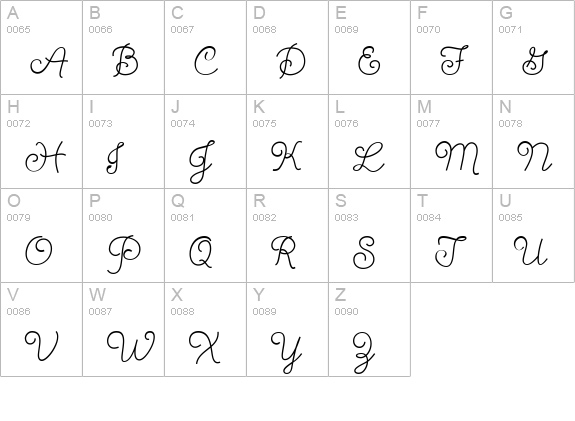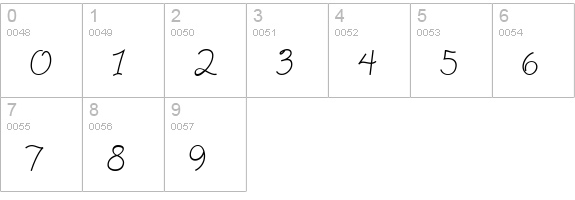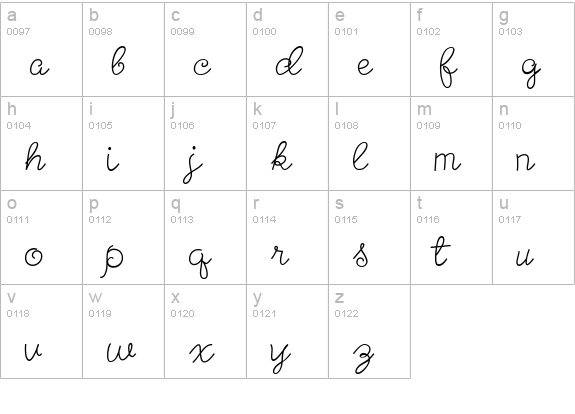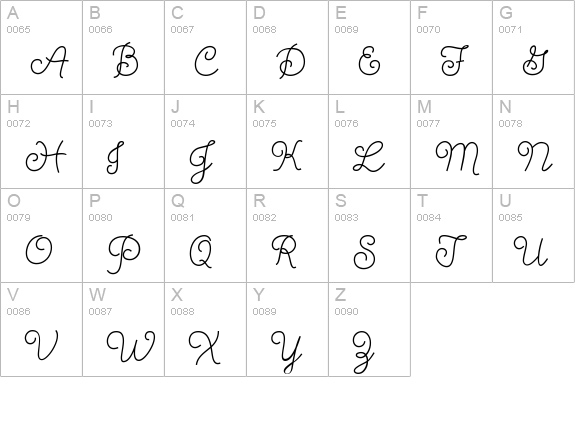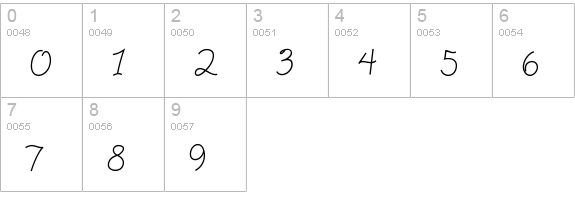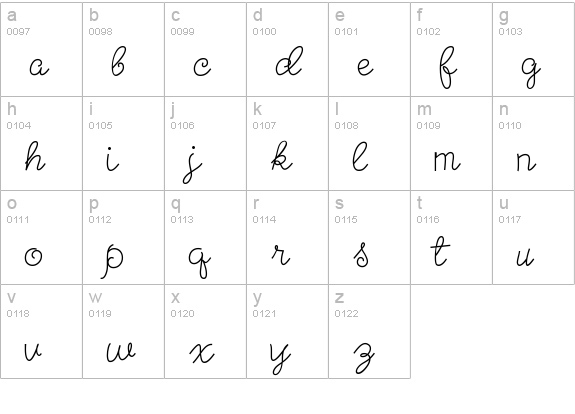
CK Windsong Font Details
Introducing CK Windsong, a beautifully crafted handwritten font that exudes elegance and charm. Its flowing strokes and delicate curves give your designs a touch of sophistication and grace. Perfect for a variety of projects, from wedding invitations to branding materials, this font will surely make a lasting impression. What's even better is that CK Windsong is completely free to download at FontsMarket.com. Yes, you read that right! You can easily access this stunning font and elevate your designs without any cost. Don't miss out on the opportunity to add CK Windsong to your font collection today and let your creativity soar.